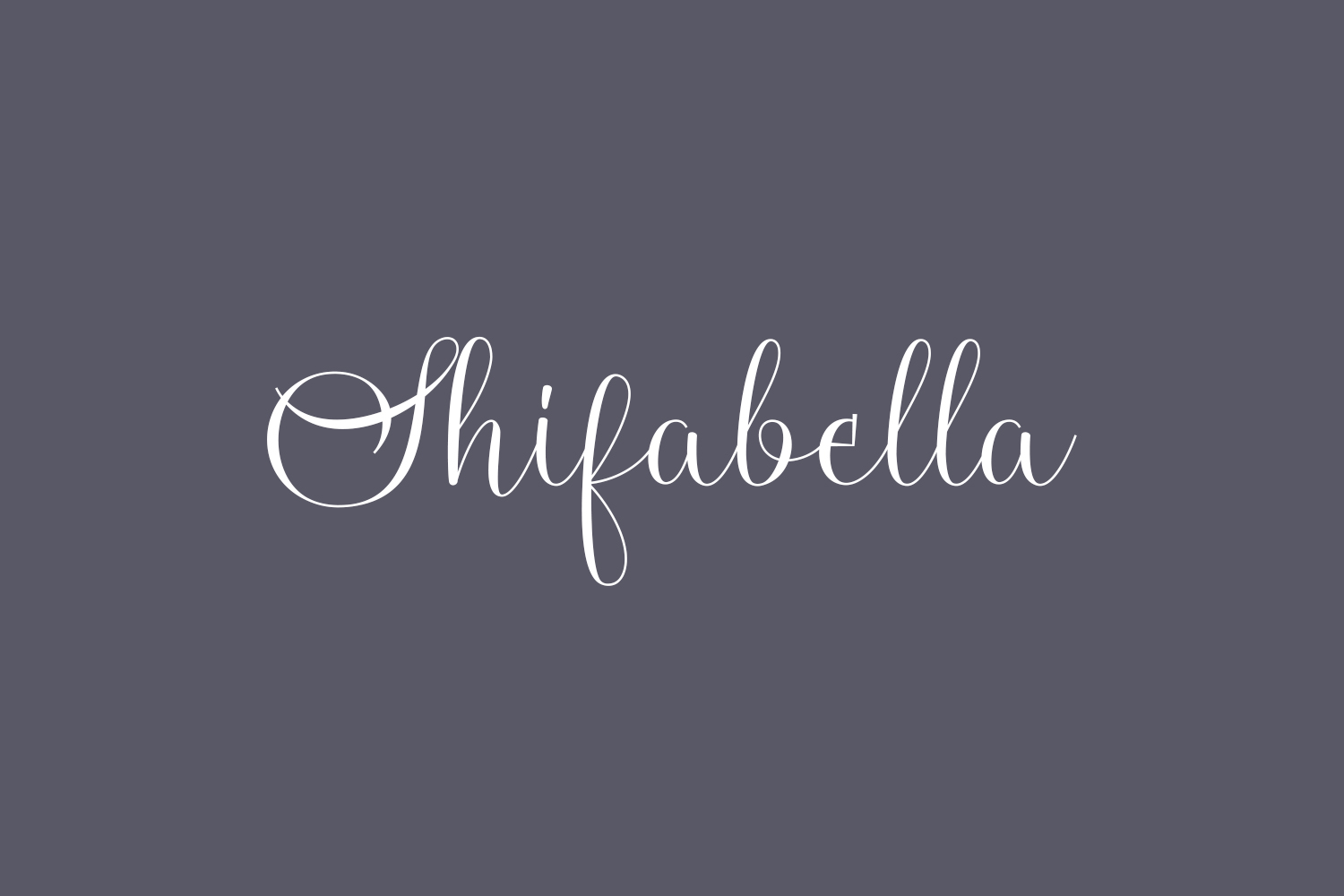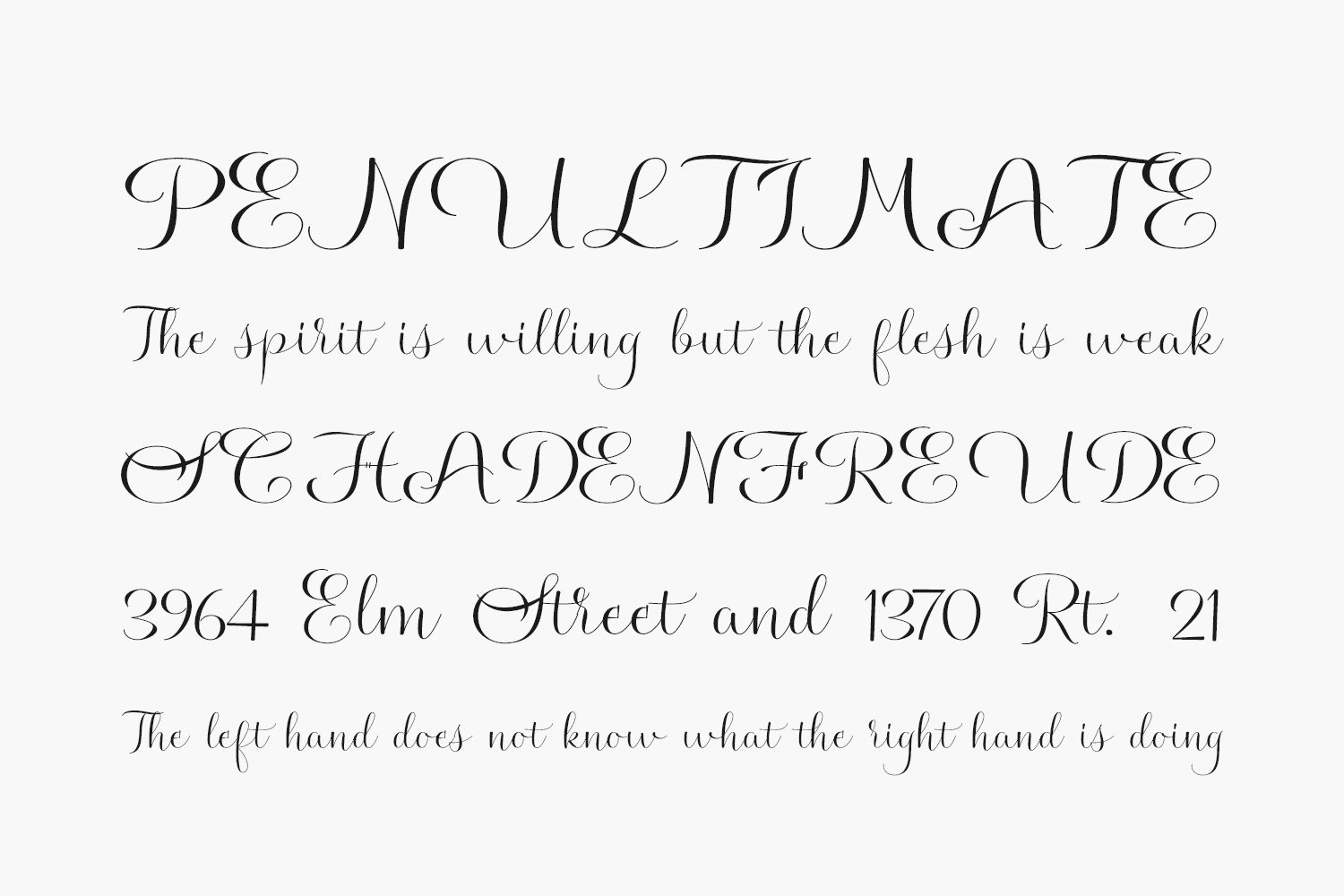
Shifabella Free Font is a beautiful and refined script font. It has a classy, elegant and modern look that can be used for a variety of design ideas. Shifabella Free Font is free for personal use only. Please purchase the full version for commercial use.